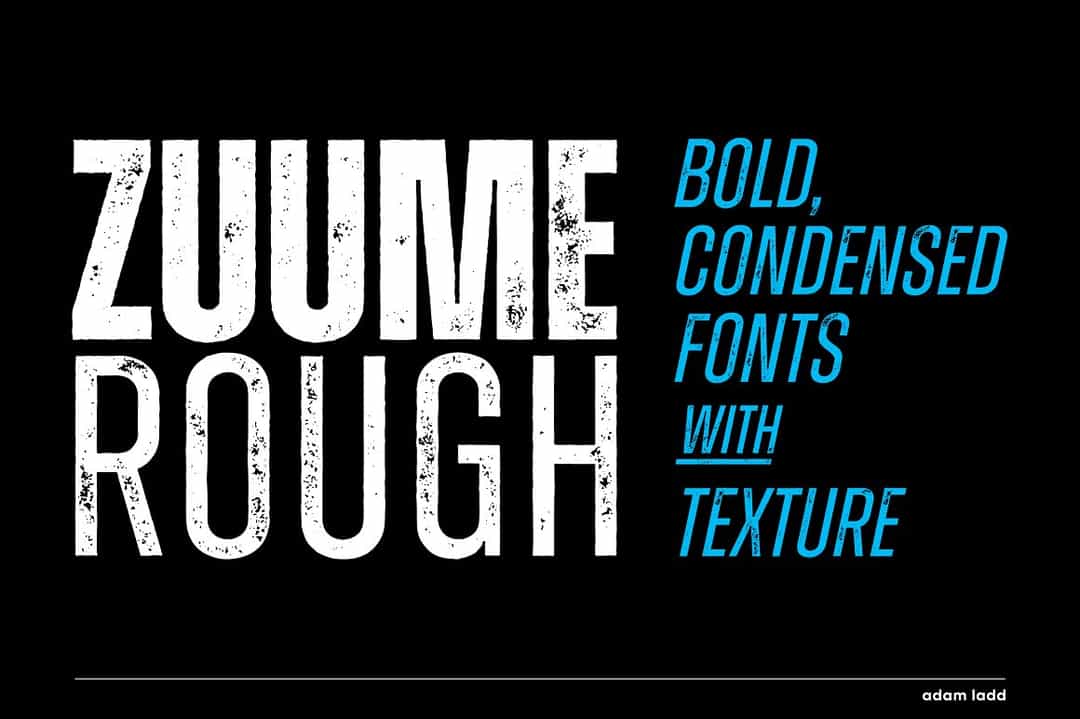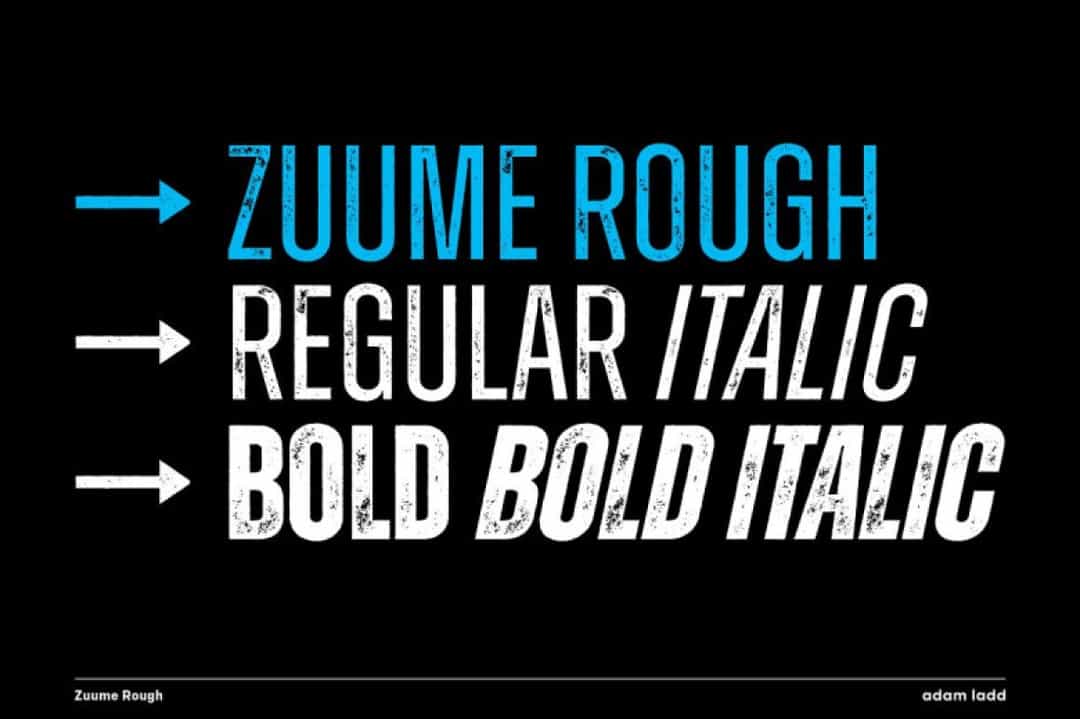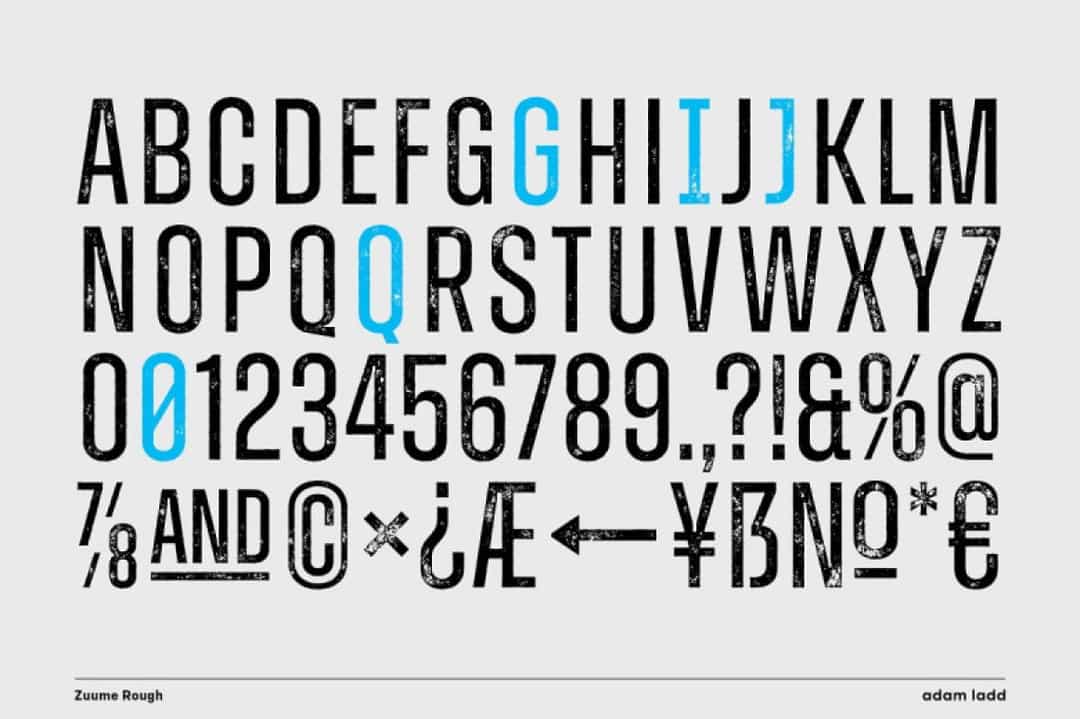
Zuume Rough is an innovative bold simplified sans serif display font family that features rough textures for a more natural, unfinished appearance. Available in bold and regular weights with italics. Space them close together or looser for greater breathing room.